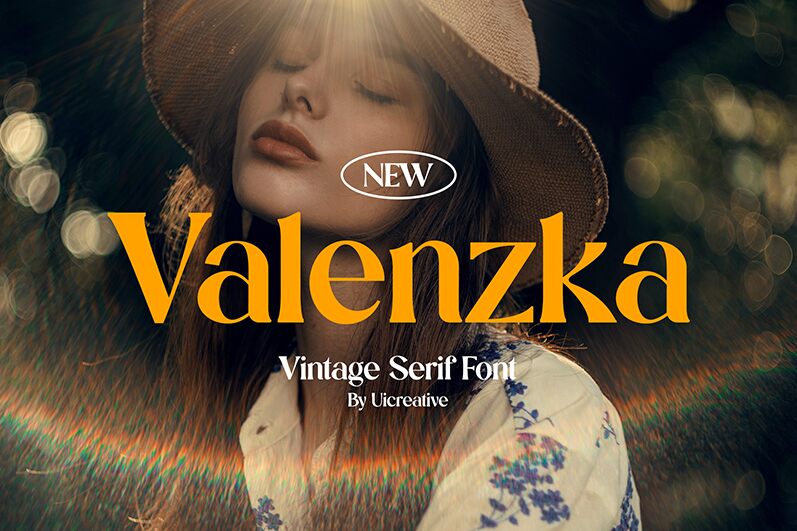
Valenzka
Valenzka, a captivating serif font crafted by UI Creative, exudes a timeless elegance with its refined lines and harmonious proportions. This typeface's distinctive character effortlessly blends traditional influences with a modern sensibility, creating a visually striking and emotive typographic experience. The font's balanced stroke weight, subtle serif flourishes, and carefully curated character set lend it an air of sophistication and refined sophistication.
Valenzka's versatility makes it a versatile choice for a wide range of design applications, from high-end editorial layouts and branding projects to captivating typography in digital interfaces and print media. Its legibility and adaptability ensure that Valenzka can seamlessly integrate into various design contexts, elevating the overall aesthetic and conveying a sense of timeless elegance.